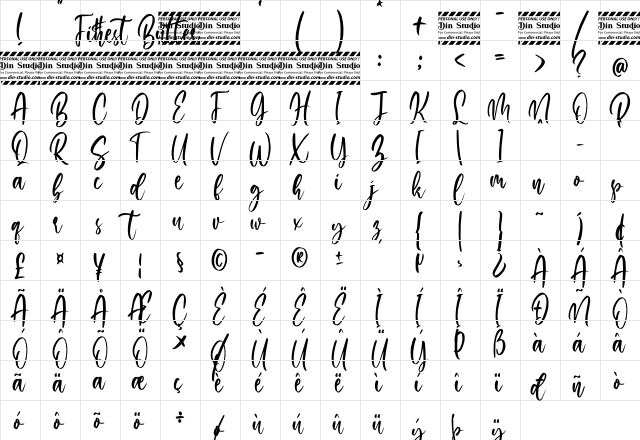
Finest Butter Personal Use Regular
| Designer | Donis Miftahudin |
Design Context for Finest Butter Personal Use Typeface
Finest Butter Personal Use is a composed and adaptable typeface that performs quietly and consistently across a wide range of design contexts.